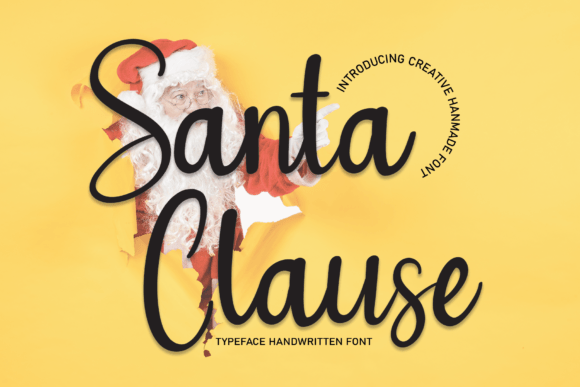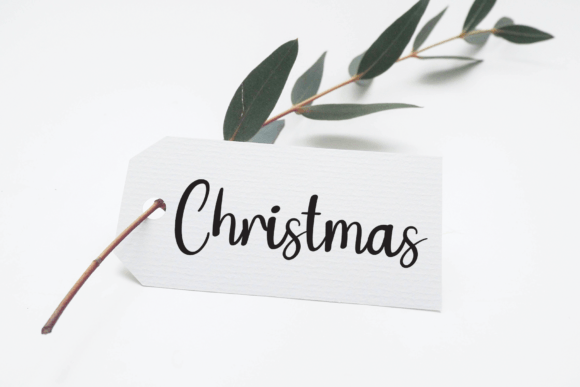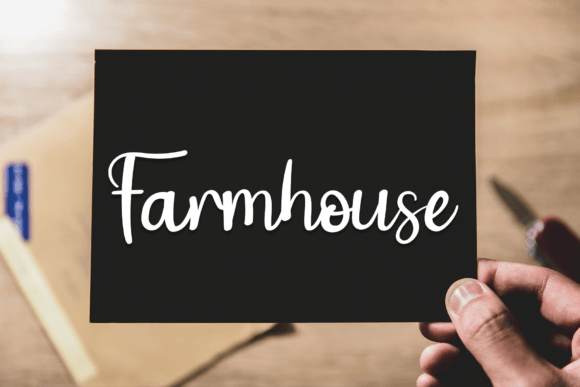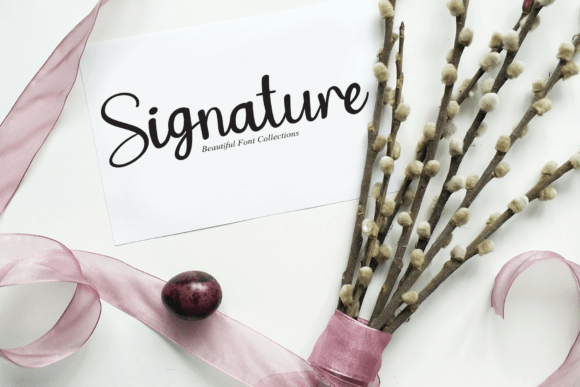
Santa Clause Font
Santa Clause Handwritten Font – Fun and Friendly Typeface
The Santa Clause Handwritten Font is a cheerful and versatile script typeface designed to add joy and personality to your creative projects. With its playful handwritten strokes and warm energy, it is perfect for both festive and everyday designs. Whether you are making greeting cards, crafts, or digital graphics, this font makes your work feel more engaging and personal.
A Handwritten Script with Character
The Santa Clause Handwritten Font combines neat curves with casual handwritten details. Its smooth and approachable style gives designs a cozy, friendly feel. Because of this, it is suitable for invitations, posters, and even branding where a natural look is needed.
Perfect for Holiday and Greeting Cards
One of the best uses of the Santa Clause HandwrittenFont is in holiday-themed projects. It shines in Christmas cards, invitations, and festive posters. At the same time, it works beautifully for non-seasonal uses like thank-you notes, logos, and DIY crafts. This makes it a versatile choice for designers who want flexibility.
Versatility for Creative Projects
The Santa Clause Handwritten Font adapts seamlessly to different contexts. From social media posts and product packaging to event signage and digital invitations, its fun handwritten look makes designs stand out. Its combination of friendliness and clarity ensures it works well in both casual and professional projects.
Why Designers Love Santa Clause Font
Designers appreciate the Santa Clause HandwrittenFont because it blends personality with usability. Its friendly strokes make it ideal for festive and playful projects, while its neat design keeps it professional enough for branding and print.